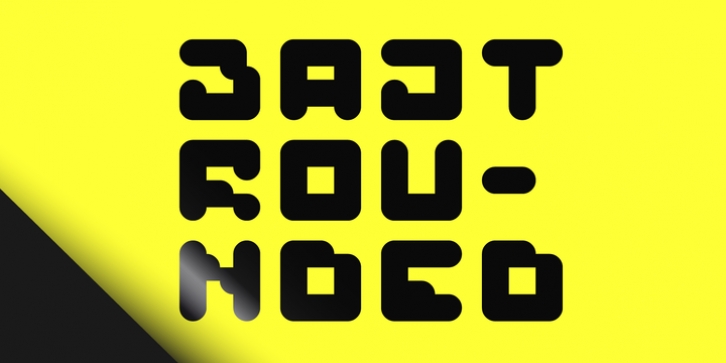
BAJT Rounded is a futuristic all-caps display font. It was created as a rounded version of the BAJT Font.
Use for awesome display, illustrations, posters, logos, t-shirts, titles, and much more..
The font includes multilingual support (Latin-1), uppercase letters, numerals and a large range of punctuation.